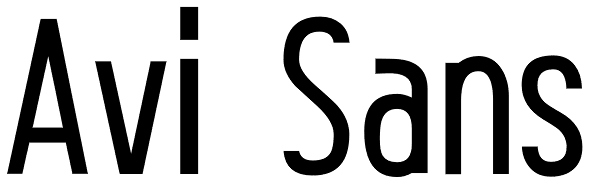
Avi Sans
AVISans™ features ultra-thin to thick, beautiful geometric forms with a clean nature and purposeful design.The AVISans™ family was created specifically for nonlinear video editors. Its lightweight form works well at small and large sizes alike.